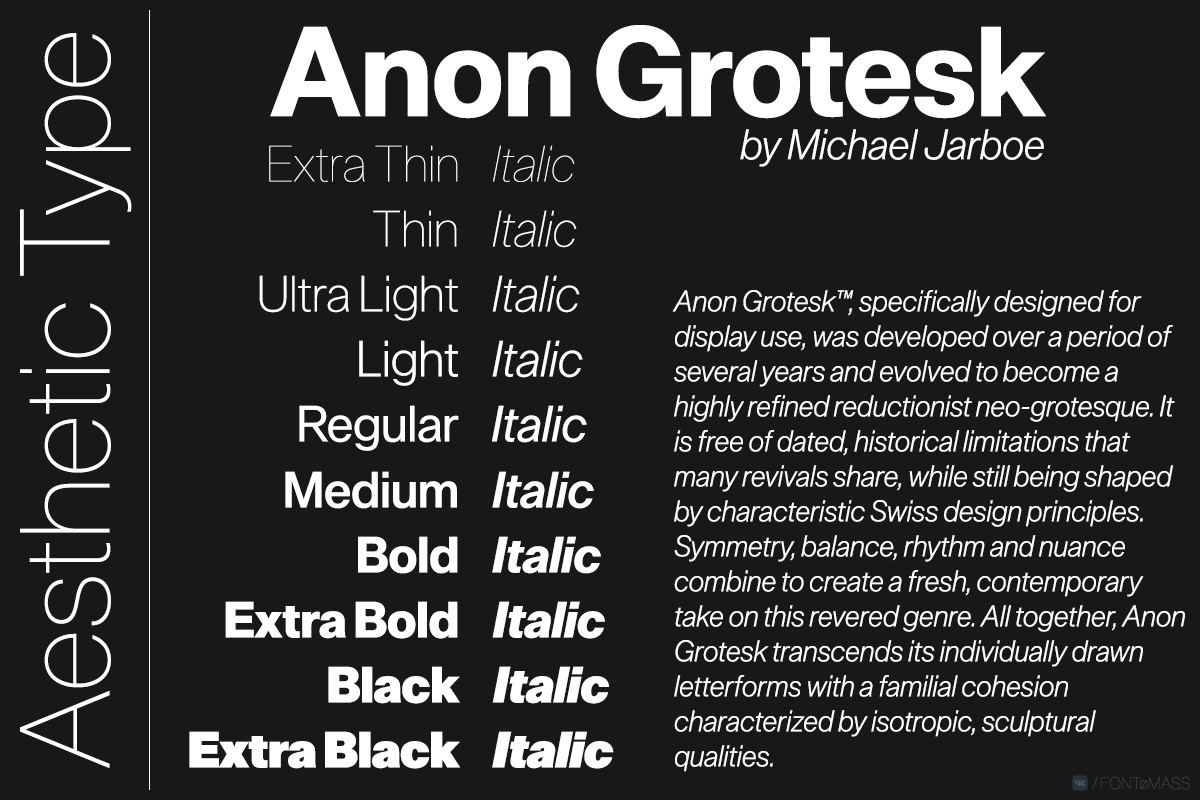
Anon Grotesk Font
Anon Grotesk Font is perfect for contemporary brand identities, digital interface design, editorial publications, architectural presentations, tech startup branding, modern signage systems, minimalist packaging design, professional websites, and clean corporate communications.
What makes Anon Grotesk Font exciting is its masterful interpretation of classic grotesk principles through a contemporary lens that achieves perfect neutrality without sacrificing character. The font features precisely engineered letterforms with optimal proportions that create exceptional readability while maintaining visual distinction. Its refined geometric structure and carefully balanced spacing make it ideal for brands that require typography with both authority and accessibility, ensuring effective communication across all media while projecting modern professionalism and sophisticated design sensibility.
Anon Grotesk Font family includes comprehensive weights ranging from Ultra Light to Black, typically featuring Thin, Light, Regular, Medium, Bold, and Heavy variations with corresponding italic styles. The family often includes condensed versions and extended character sets with international language support, providing designers with complete flexibility for creating sophisticated typographic hierarchies and global brand applications requiring precise control.
This refined typeface has become a favorite among design professionals seeking versatile, high-quality grotesk typography. Anon Grotesk Font Free Download provides an excellent opportunity to evaluate this premium font system before purchase. The font's advanced OpenType features include professional kerning pairs, contextual alternates, and specialized symbols that ensure optimal performance across all design applications and platforms. Whether you're designing for technology companies, cultural institutions, or progressive brands, Anon Grotesk Font delivers the sophisticated neutrality your project demands. Its versatile character makes it suitable for various industries including media, finance, education, and healthcare, ensuring your typography choices communicate clarity and professionalism while maintaining contemporary relevance that resonates with modern audiences through its timeless yet forward-thinking design approach that bridges classic typography traditions with current design trends.